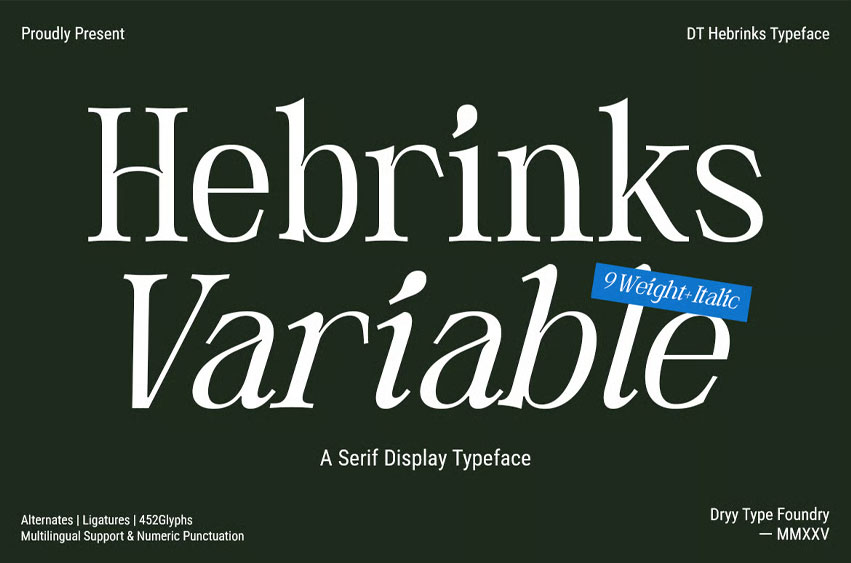
Hebrinks Variable Font
Hebrinks Variable Font is a beautiful and elegant serif font. Inspired by New beginnings that try to look better in terms of quality and visuals, with dedication when making it, which takes quite a long time. The font I created is meaningful & very versatile, suitable for various designs, elevating it to the highest level. Add this font to your favorite creative ideas and see the results!